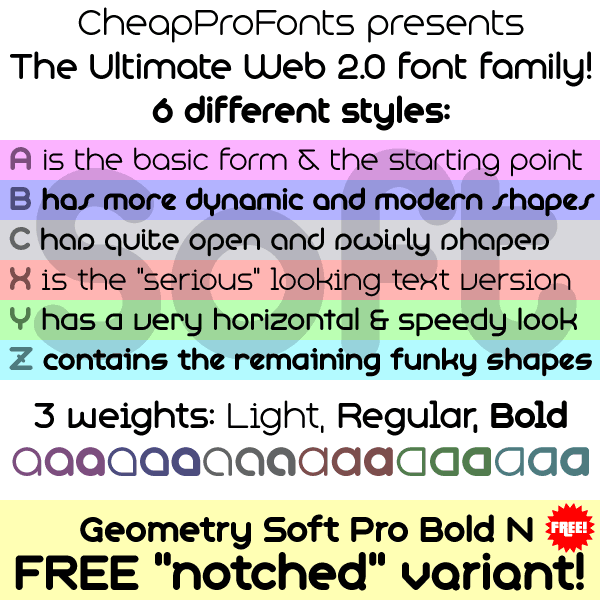
The "Geometry Pro" family has been designed to be the final word in purely geometric fonts, and this rounded "Soft" sub-family is the ultimate web 2.0 style font collection. ;)
Even though it is strictly geometric (as drawn with a compass and a ruler fixed to 90 and 45 degree angles) it is not slavishly modular: letters have differing widths, and the sidebearings, spacing and kerning has been finely adjusted to create smooth text.
The Soft family contains 3 weights each with 6 variants = 18 fonts + an additional FREE variant for you to enjoy!
More (quite different) variants of the "Geometry" family to follow! ;)
Geometry Soft Pro Bold
Geometry Soft Pro Bold  by Roger S. Nelsson
Geometry Soft Pro Regular
Geometry Soft Pro Regular  by Roger S. Nelsson
Geometry Soft Pro Light
Geometry Soft Pro Light  by Roger S. Nelsson
Geometry Soft Pro Bold A
Geometry Soft Pro Bold A by Roger S. Nelsson
Geometry Soft Pro Regular A
Geometry Soft Pro Regular A by Roger S. Nelsson
Geometry Soft Pro Light A
Geometry Soft Pro Light A by Roger S. Nelsson
Geometry Soft Pro Bold B
Geometry Soft Pro Bold B by Roger S. Nelsson
Geometry Soft Pro Regular B
Geometry Soft Pro Regular B by Roger S. Nelsson
Geometry Soft Pro Light B
Geometry Soft Pro Light B by Roger S. Nelsson
Geometry Soft Pro Bold C
Geometry Soft Pro Bold C by Roger S. Nelsson
Geometry Soft Pro Regular C
Geometry Soft Pro Regular C by Roger S. Nelsson
Geometry Soft Pro Light C
Geometry Soft Pro Light C by Roger S. Nelsson
Geometry Soft Pro Bold X
Geometry Soft Pro Bold X by Roger S. Nelsson
Geometry Soft Pro Regular X
Geometry Soft Pro Regular X by Roger S. Nelsson
Geometry Soft Pro Light X
Geometry Soft Pro Light X by Roger S. Nelsson
Geometry Soft Pro Bold Y
Geometry Soft Pro Bold Y by Roger S. Nelsson
Geometry Soft Pro Regular Y
Geometry Soft Pro Regular Y by Roger S. Nelsson
Geometry Soft Pro Light Y
Geometry Soft Pro Light Y by Roger S. Nelsson
Geometry Soft Pro Bold Z
Geometry Soft Pro Bold Z by Roger S. Nelsson
Geometry Soft Pro Regular Z
Geometry Soft Pro Regular Z by Roger S. Nelsson
Geometry Soft Pro Light Z
Geometry Soft Pro Light Z by Roger S. Nelsson
Geometry Soft Pro Bold N
Geometry Soft Pro Bold N by Roger S. Nelsson